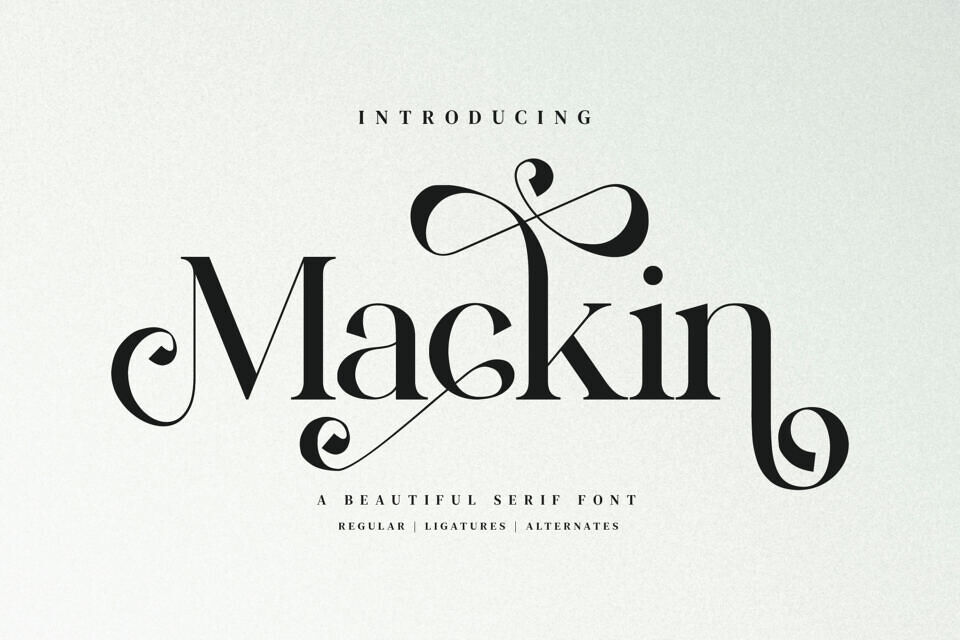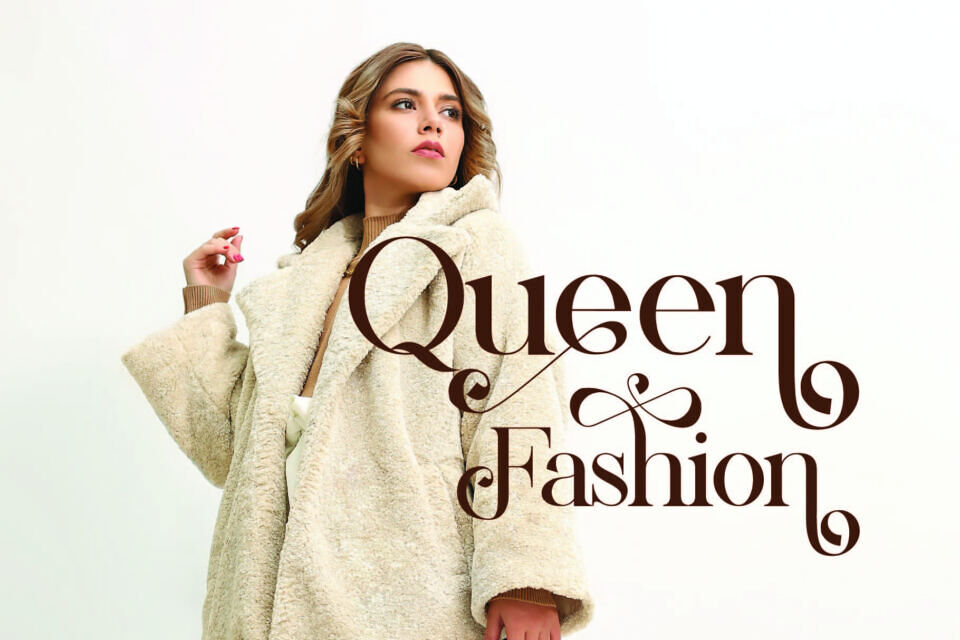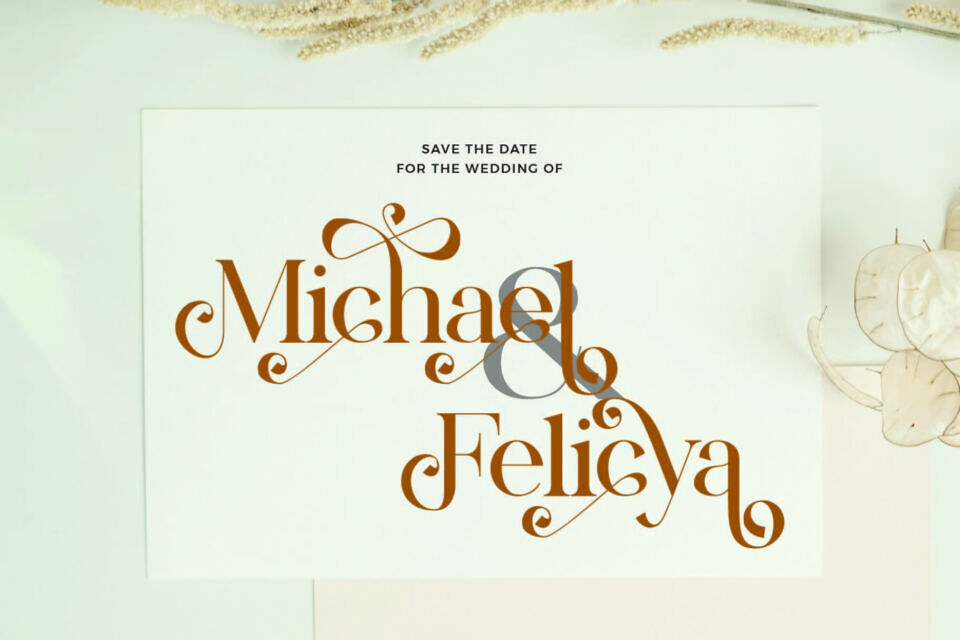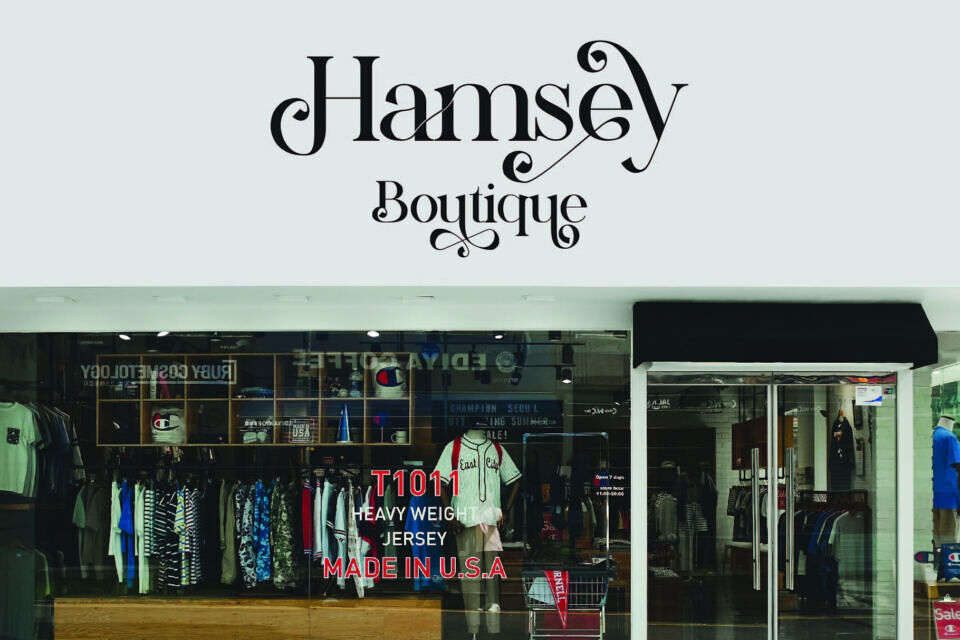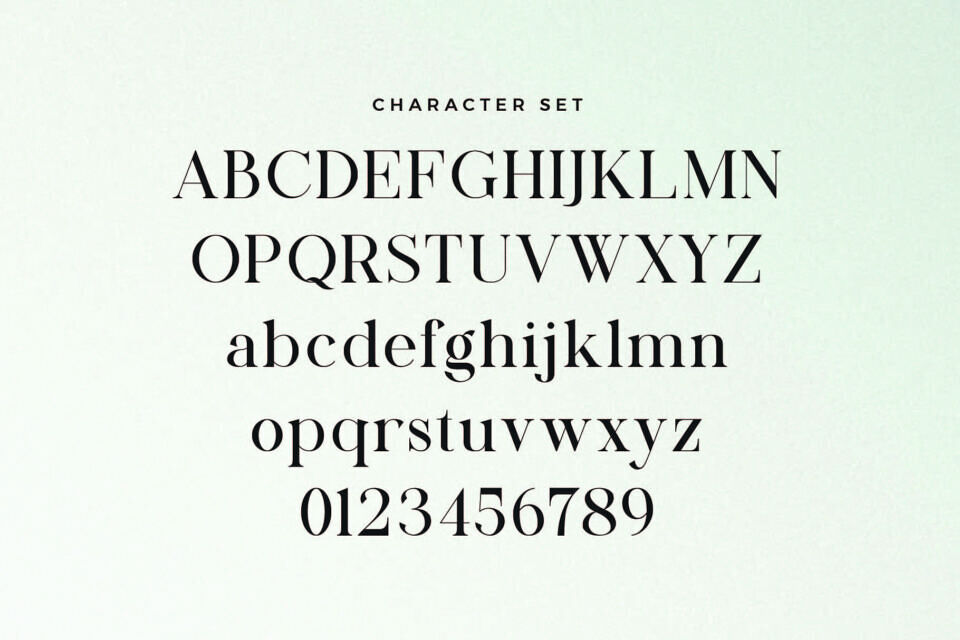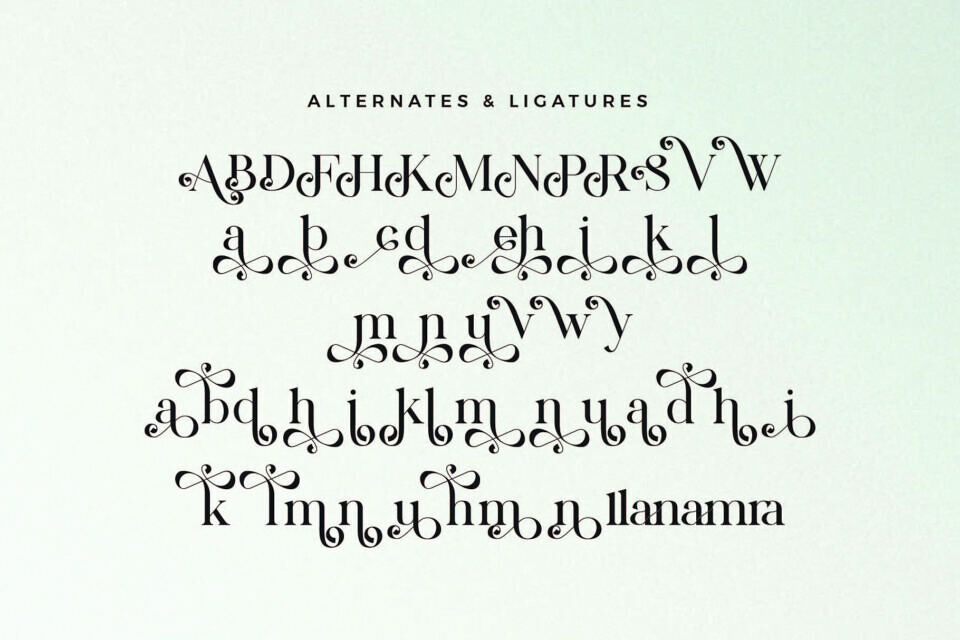
Mackin Font
Mackin is a refined, modern serif font designed by Aqeel Art. Featuring 297 characters, it blends elegant, vintage-inspired aesthetics with a contemporary feel, making it an excellent choice for wedding invitations, logos, and stylish branding projects. While its sophisticated curves provide a classic touch, the design remains versatile for creative layouts.